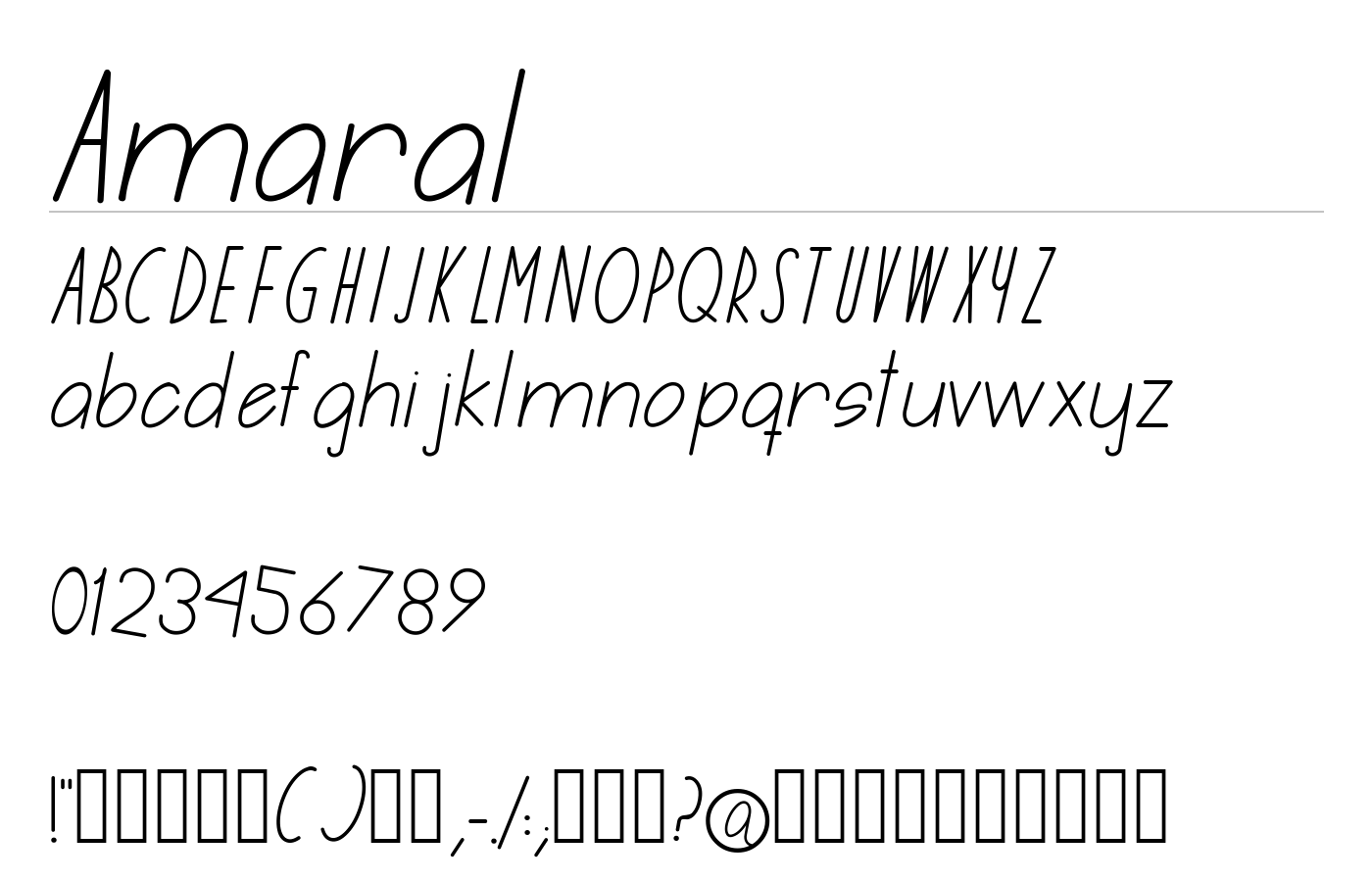
Amaral is a slender, playful sans serif font with a handwritten, casual feel. Its narrow, slightly slanted letterforms and delicate strokes give it a light, airy appearance, making it perfect for informal designs, creative projects, and friendly branding that seeks a personal touch. This font works well in headlines, invitations, and any context where a touch of uniqueness and charm is desired.
Amaral Font
About Amaral Font